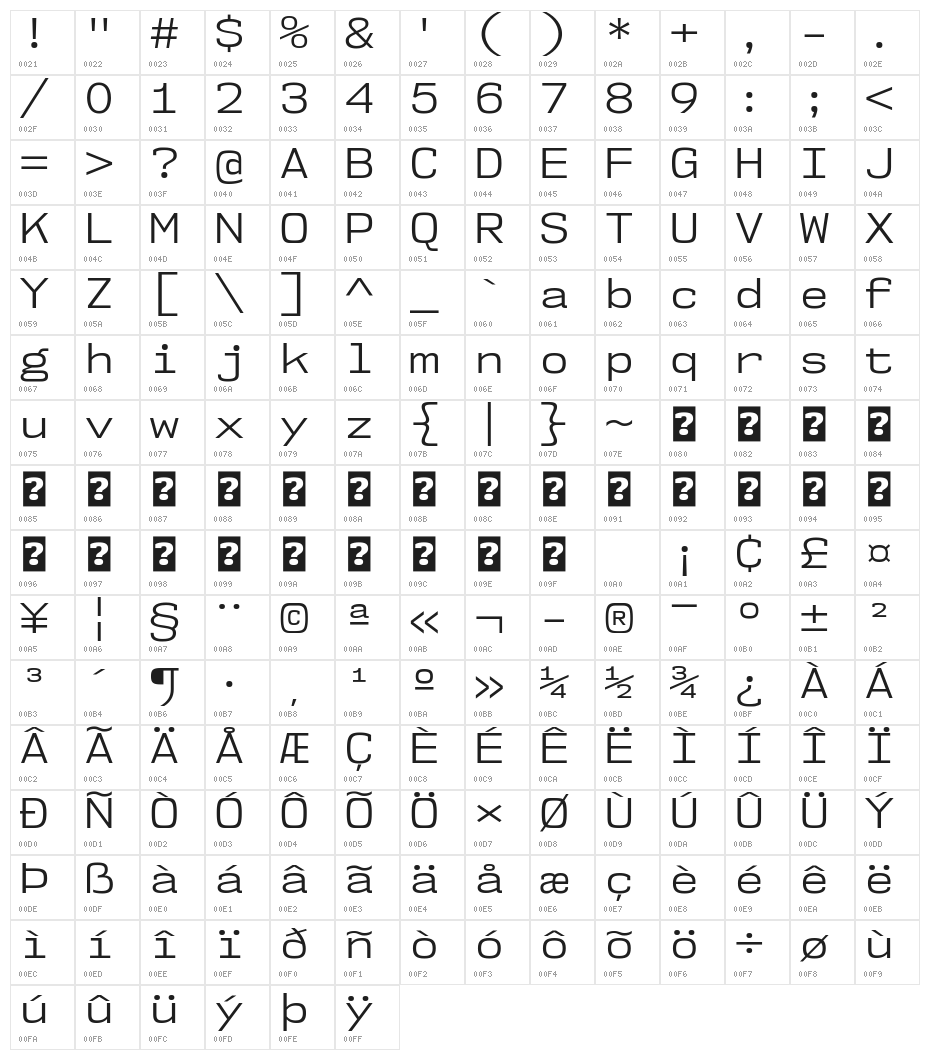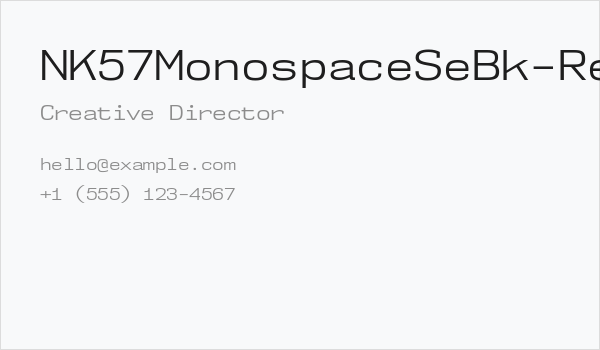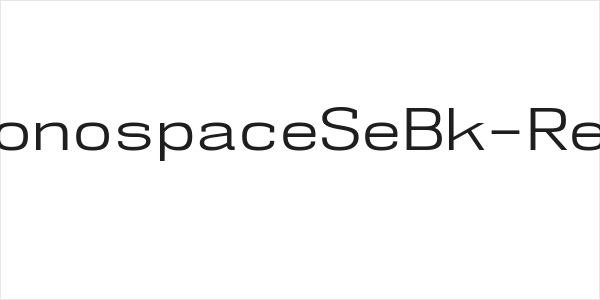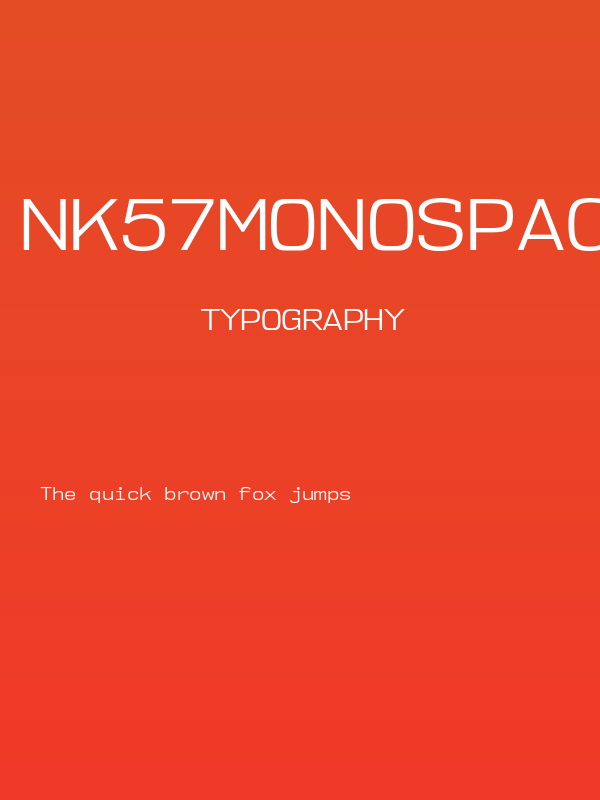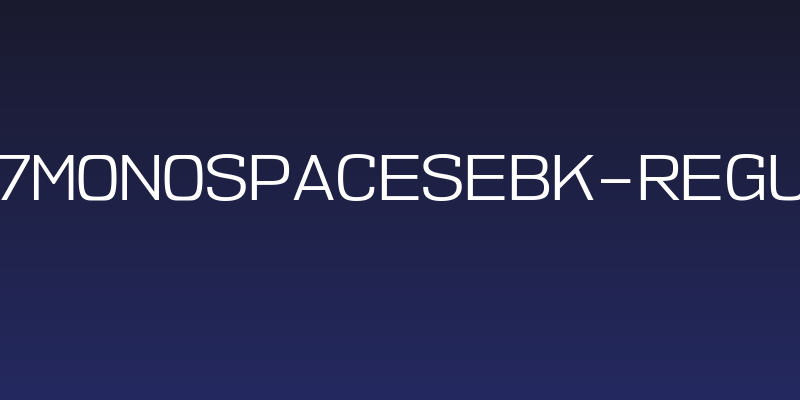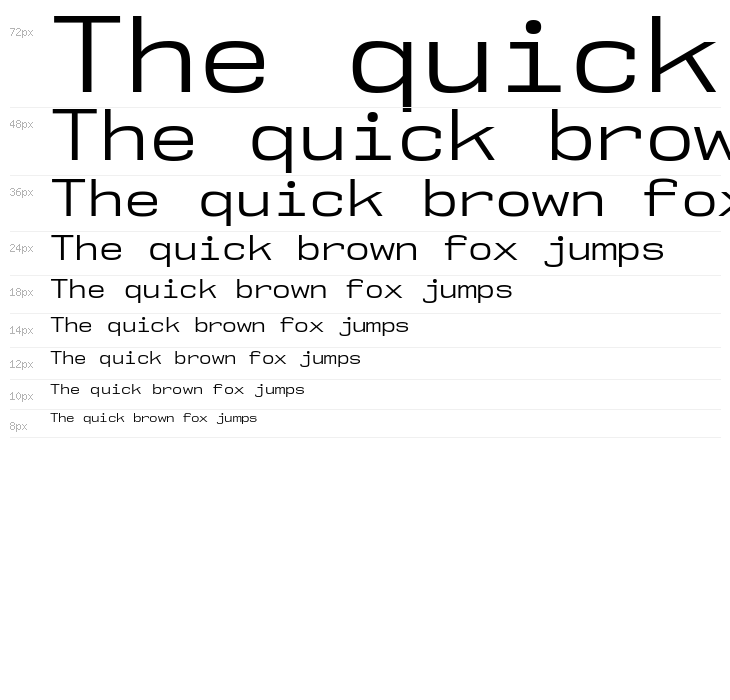
NK57MonospaceSeBk-Regular Font
NK57MonospaceSeBk-Regular Description
This typeface is a monospaced font characterized by its uniform width across all characters, providing a clean and organized appearance. The design features straight lines and minimal curves, giving it a modern and technical look. The uppercase letters are slightly taller than the lowercase, maintaining a consistent height that enhances readability. The numerals are clear and distinct, making them ideal for coding or data presentation. Special characters are well-defined, ensuring clarity in various contexts. The overall design is functional and straightforward, suitable for environments where precision and clarity are paramount.
| Use Case | Coding, Technical documentation, Data tables |
| Proposed Projects | Ideal for coding, technical documentation, data tables, and any project requiring precise alignment. |